Designing by hand requires some time and skills that not all modern graphic designers have. To create designs with a handmade look-and-feel despite this, you can use some great resources like the following chalk fonts.
1. Chalk Hand Lettering
A handwriting font that emulates the vintage style chalkboard signs lettering. You can also use it to make a school chalkboard design. It comes with a subtle texture on the edge of letters to make it look more real. If you plan on using it for titling, you’ll love the shaded version and the chalk hand elements. Available on MyFonts.
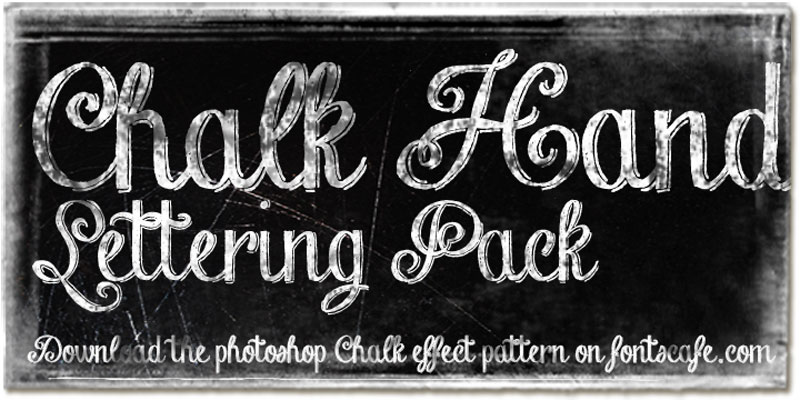
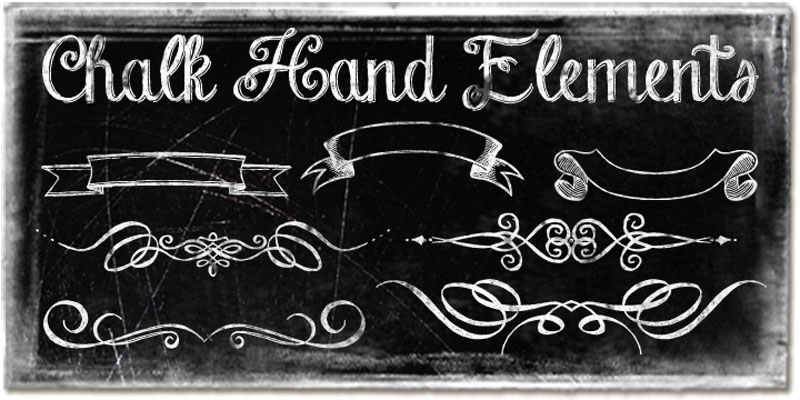
2. Chameleon
Chameleon was clearly designed after the typographic styles and lettering effects used on restaurant menu boards. It is a versatile display font that you can use in all kinds of titles to give a warm and friendly effect to it.
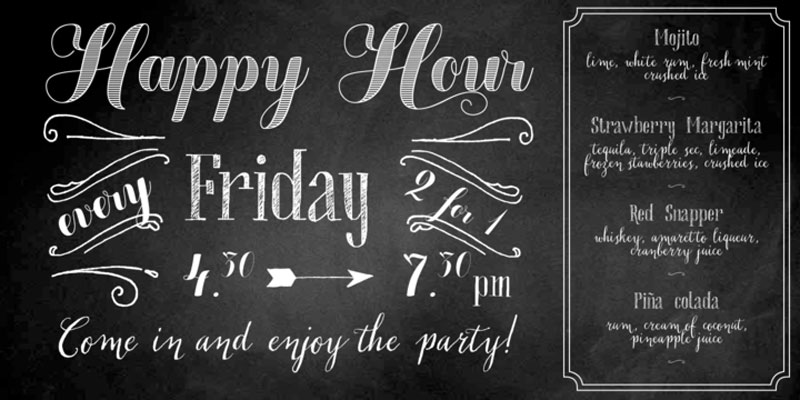
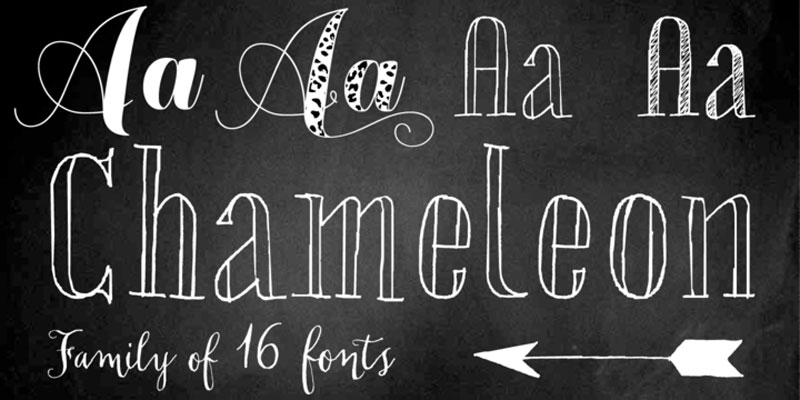
3. Coalhand Luke
A handwritten font made with a piece of coal by Joebob graphics. Perfect for designs that need a quick handwritten text in it.
4. Chalkline Bold
Chalkline by Letraset is a font with a long history, as it was designed in 1988 by Tony Watson. For a long time, the typeface was too complex to be digitalized, so it only came out as a digital font in 2003. As its name suggests, the font has a nice chalk look and feel.
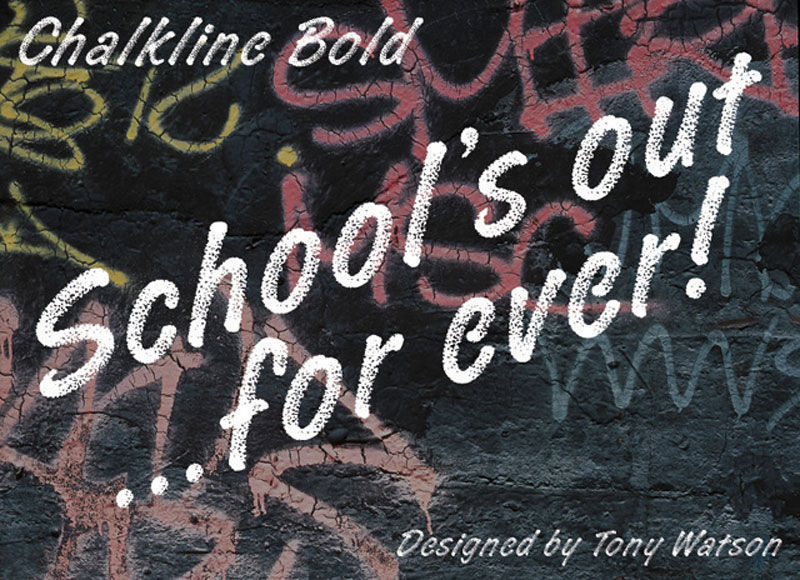
5. KG Flavor And Frames Seven
Decayed and stamped highly textured frames and decorations. KG Flavor is perfect for chalkboard art.
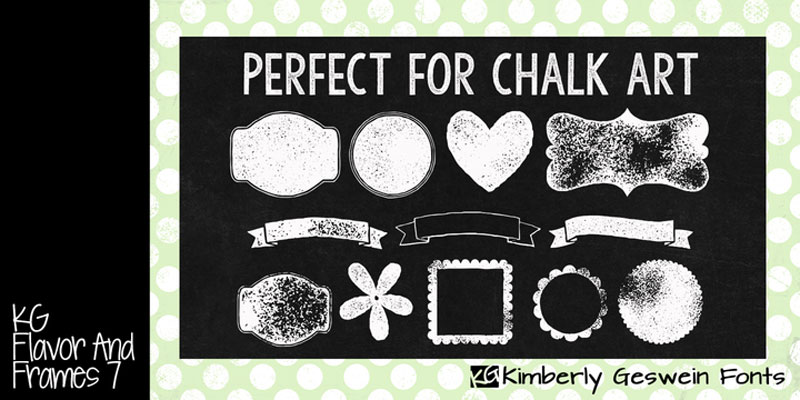
6. Frank Reaction
Pencil or chalk, Frank Reaction gives you the possibility to create all kind of handwritten texts. With contextual alternates, it allows you to create text that doesn’t look all the same so that people can’t notice it was made on computer.
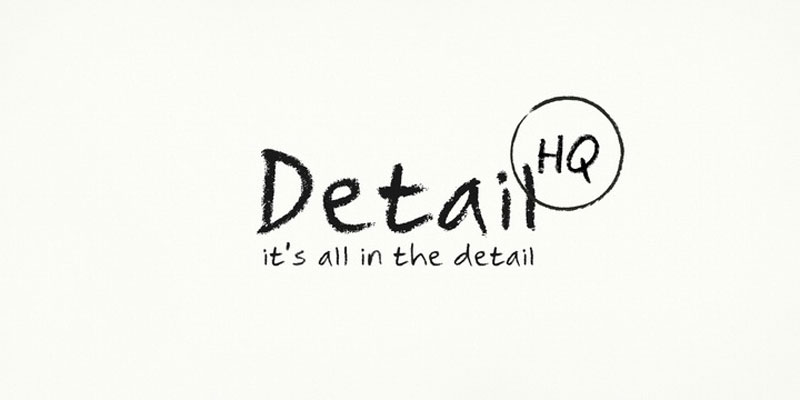
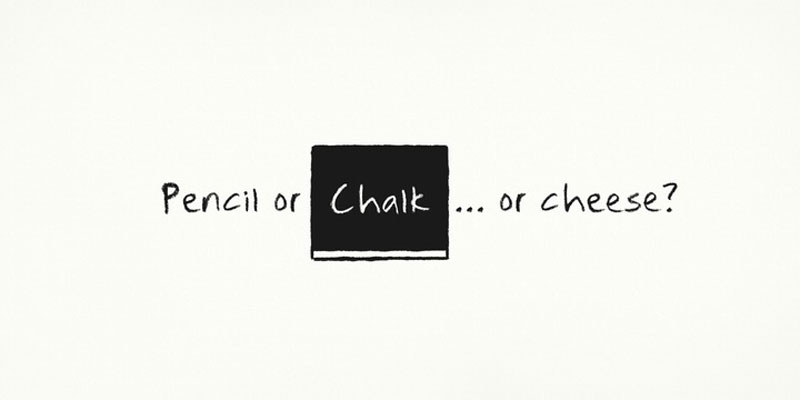
7. Road Art
Road Art derives from painted lettering found on roads in the UK. Each character has been created from original photography.
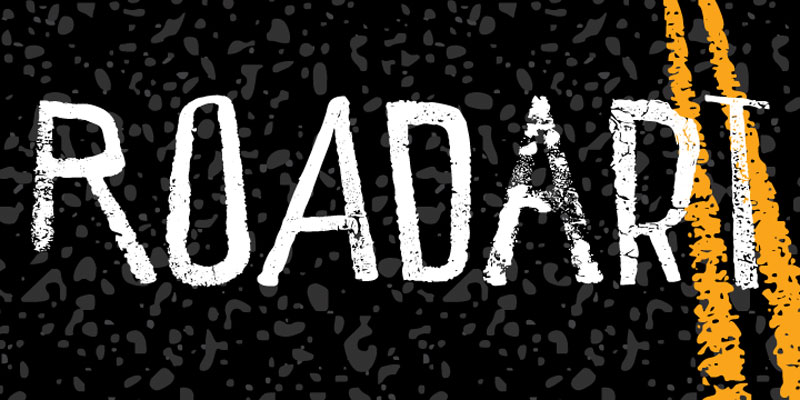
8. Crayon Hand
In absence of oil pastels, charcoal, crayons or time, Crayon Hand is a quick fix to happy type setting. It comes in regular and bold.